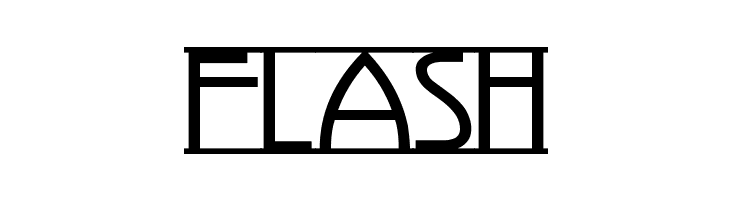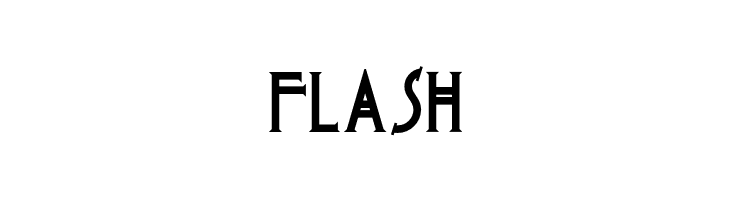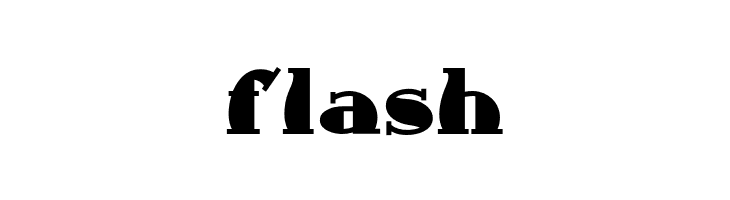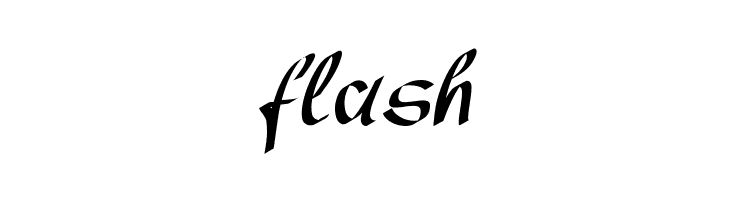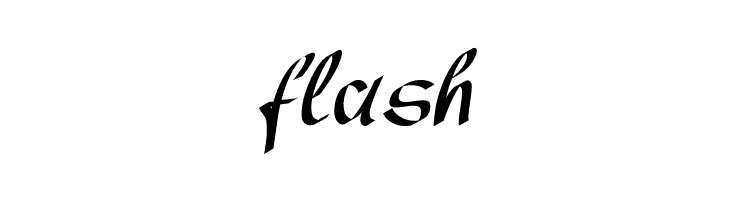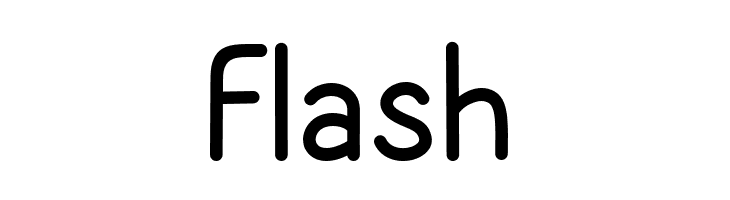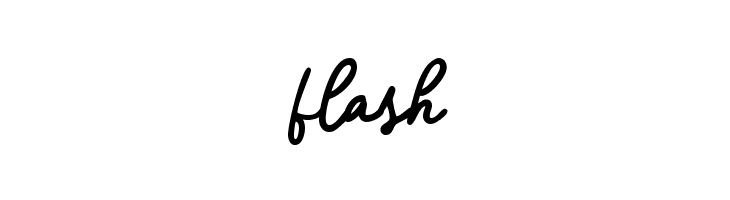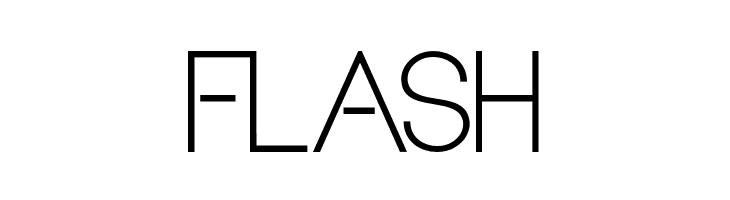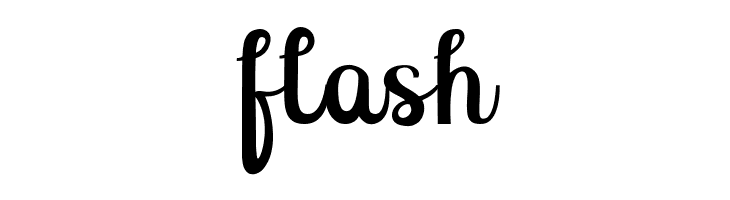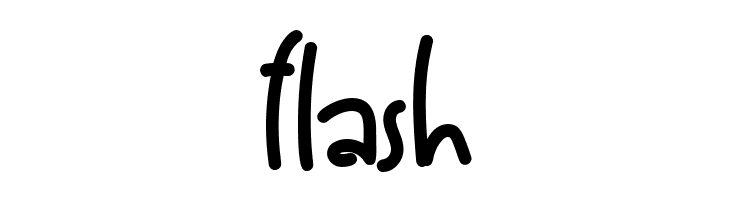
A modern, italic sans-serif font with a sleek and dynamic style.
A modern, geometric font with uniform strokes and a clean, balanced design.
A fluid, handwritten script font with a casual and elegant style.
A decorative, medieval-inspired font with intricate flourishes.
A bold, italicized decorative font with a mystical, enchanting style.
An ornate, medieval-inspired italic font with decorative flourishes.
A bold, vintage-style font with stencil-like cut-out elements.
A bold, high-contrast decorative font with dramatic serifs.
A bold, dynamic font with a futuristic and sporty style.
A playful, bold font with a hand-drawn, distorted style.
A playful, casual handwritten font with smooth, flowing lines.
A bold, geometric font with a futuristic and industrial aesthetic.
A fluid and dynamic script font with elegant, flowing lines.
A playful, hand-drawn font with rounded edges and a whimsical style.
A dynamic, abstract handwritten script with sharp angles and fluid curves.
An Art Deco-inspired font with elongated, narrow characters and geometric elements.
An artistic and decorative font with elongated, narrow characters and whimsical elements.
A bold, calligraphic script font with dynamic strokes and angular edges.
A bold, calligraphic script font with dynamic, angular strokes.
A bold, calligraphic script font with high contrast and dynamic strokes.
A bold, playful handwritten font with a casual and quirky style.
A bold, playful font with quirky, irregular letterforms and whimsical elements.
A modern, geometric sans-serif font with clean lines and uniform stroke width.
An elegant, flowing script font with sophisticated loops and swashes.
A playful and whimsical script font with bold, interconnected letters.
A decorative font inspired by Aztec motifs with intricate and stylized glyphs.
A lively and dynamic script font with fluid, cursive strokes.
A vintage-inspired font with sharp serifs and art deco elements.
A playful and whimsical font with vintage theatrical flair.
A playful, handwritten font with bold, expressive strokes.
A playful, bold font with rounded, thick strokes and a whimsical, friendly appearance.